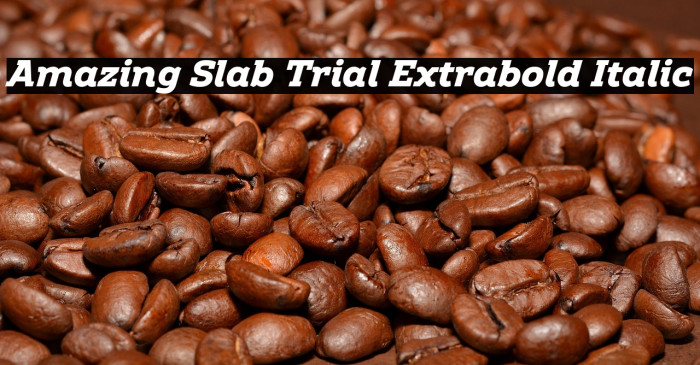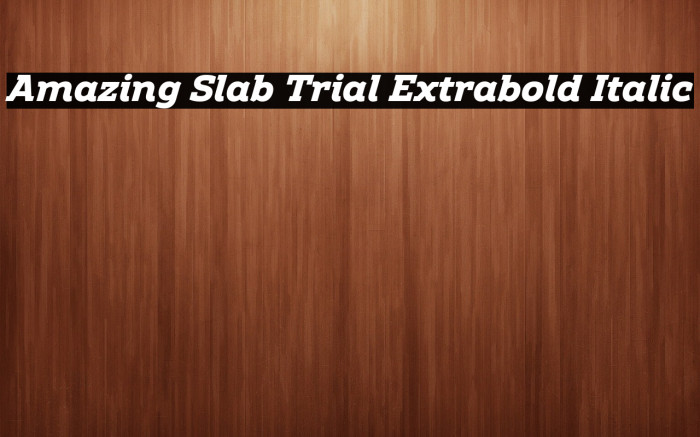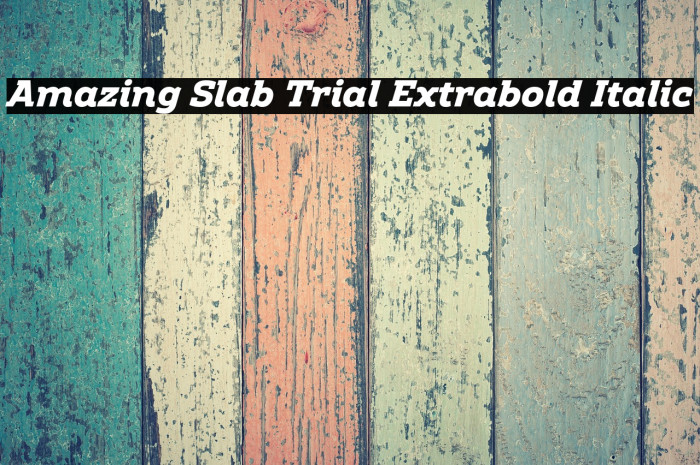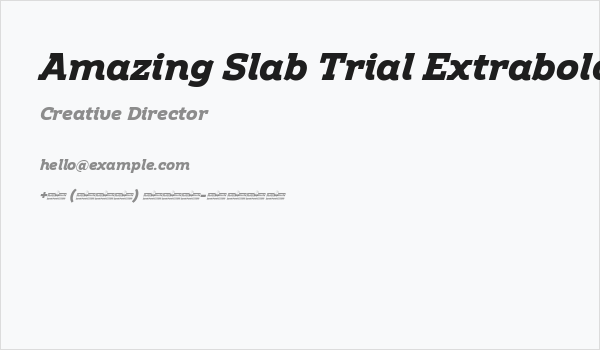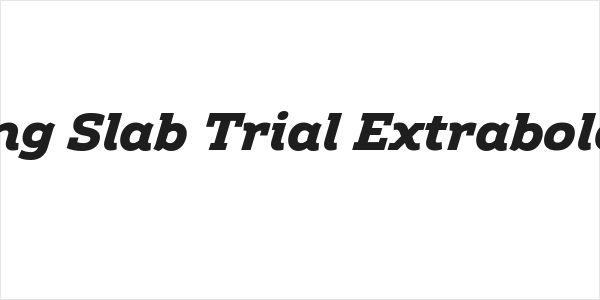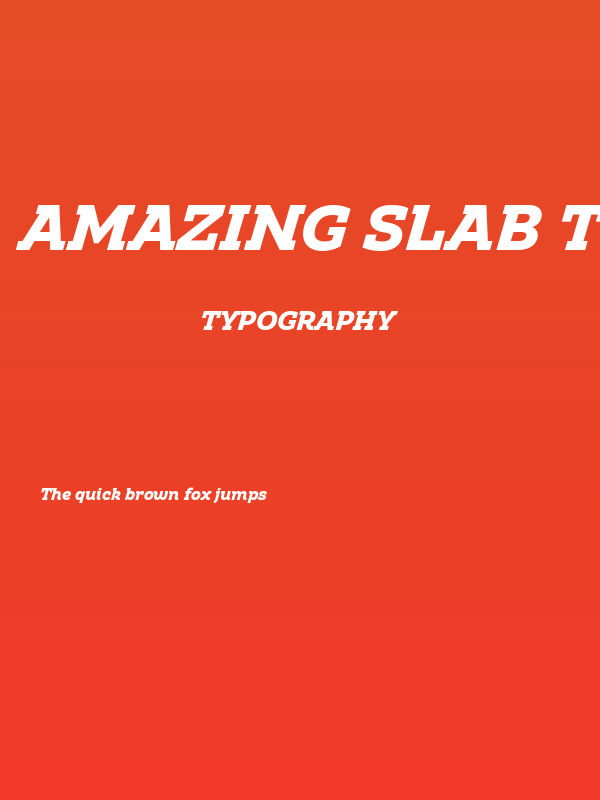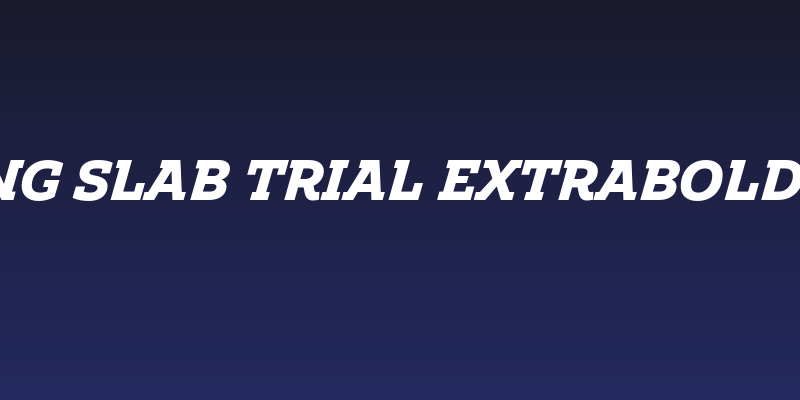
Amazing Slab Trial Extrabold Italic Font
Amazing Slab Trial Extrabold Italic Description
This font features a robust and dynamic slab serif style with an extra bold weight, giving it a strong presence. The italic slant adds a sense of motion and elegance, making it suitable for attention-grabbing headlines. The characters are well-defined with thick strokes, providing high contrast that enhances readability. The overall design is modern yet retains a classic touch, making it versatile for various design needs. The spacing between characters is normal, ensuring clarity and legibility across different sizes.
| Proposed Projects | Ideal for branding, advertising, poster design, and editorial headlines. |